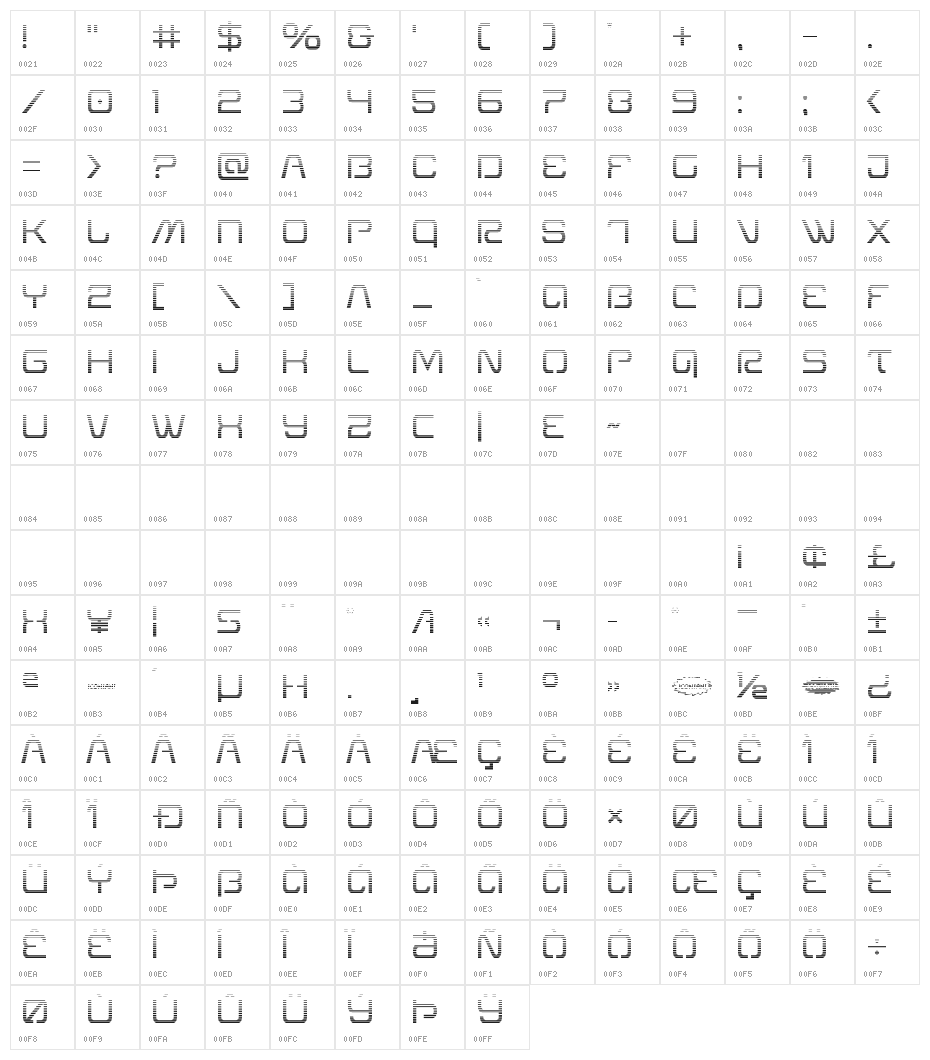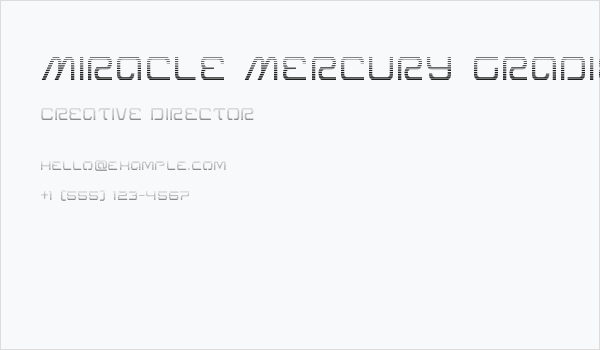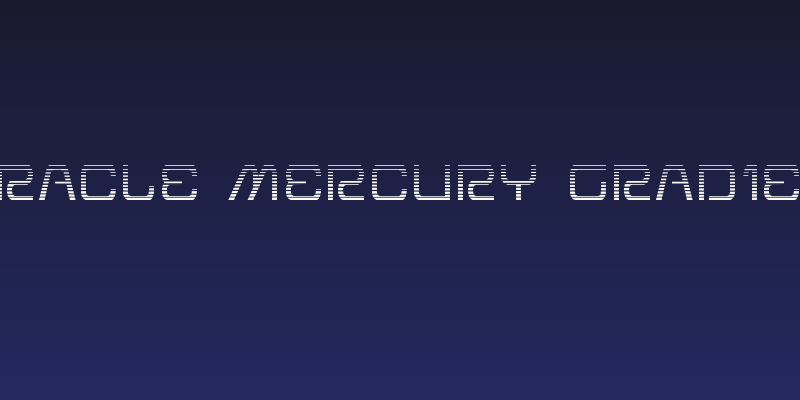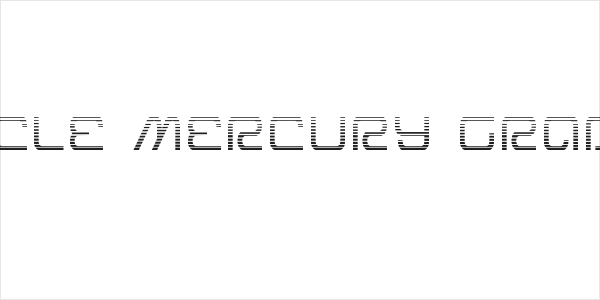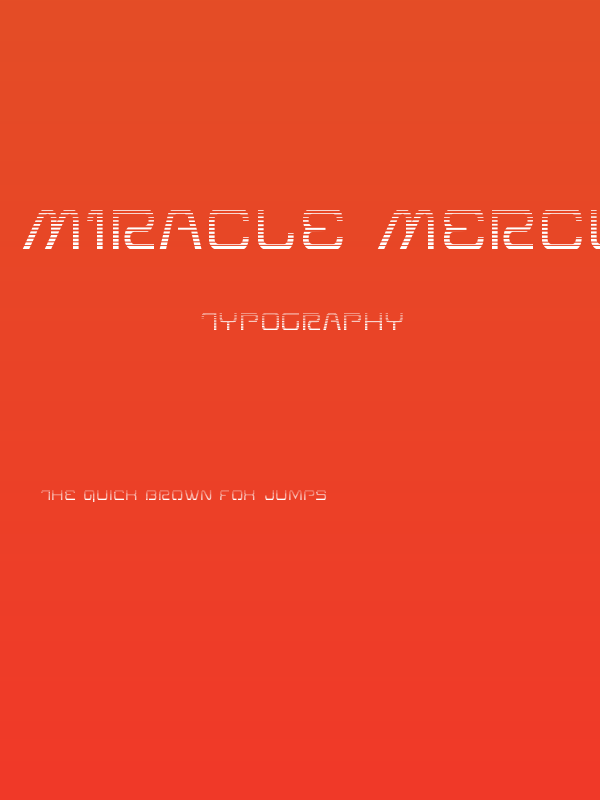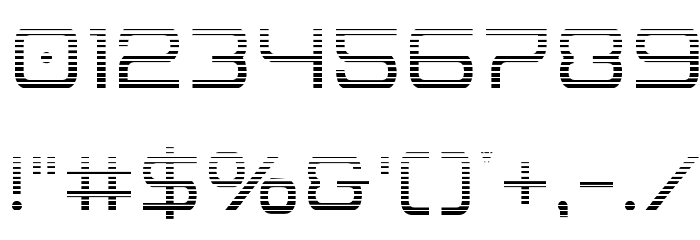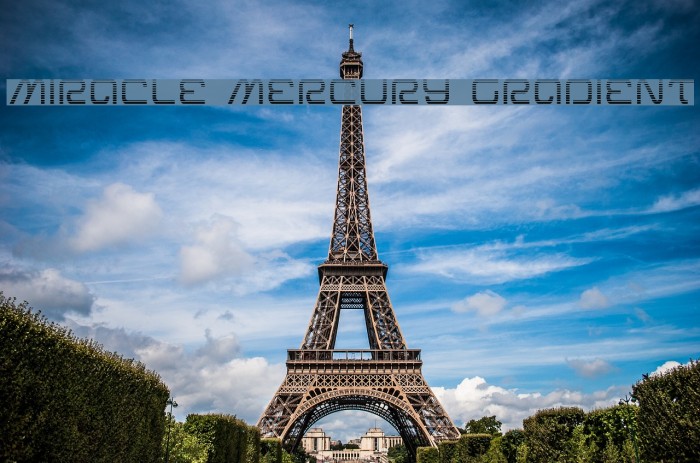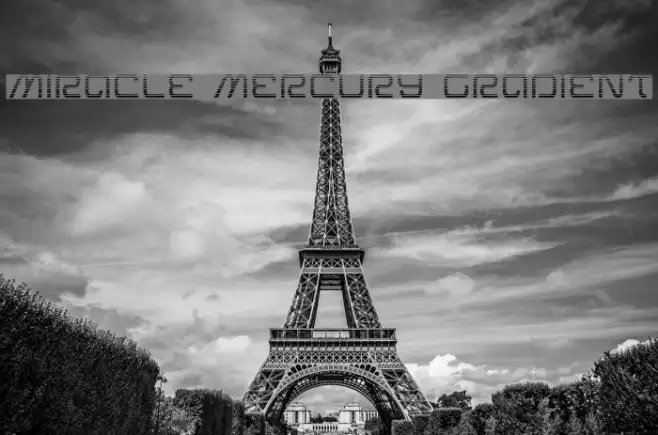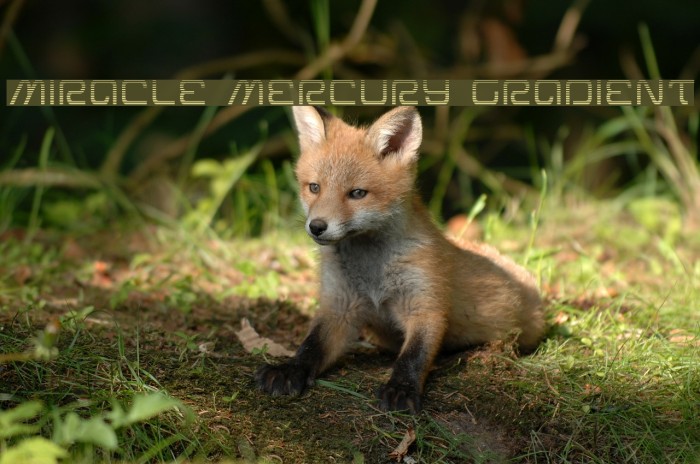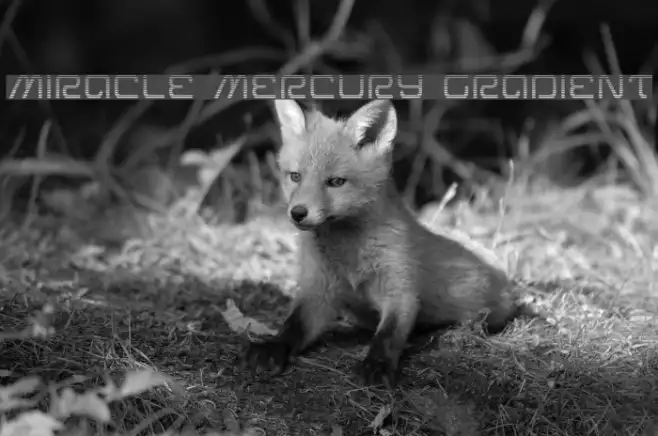
Miracle Mercury Gradient Font
Miracle Mercury Gradient Description
This font features a futuristic and digital aesthetic, characterized by its segmented and striped design. Each character is composed of horizontal lines that create a sense of movement and modernity. The uppercase and lowercase letters maintain a consistent style, with rounded edges and a geometric structure. The numerals and special characters follow the same pattern, ensuring uniformity across the font. This design is visually striking and ideal for projects that require a contemporary and tech-inspired look.
| Proposed Projects | Ideal for technology branding, digital media, video game interfaces, and sci-fi themed projects. |